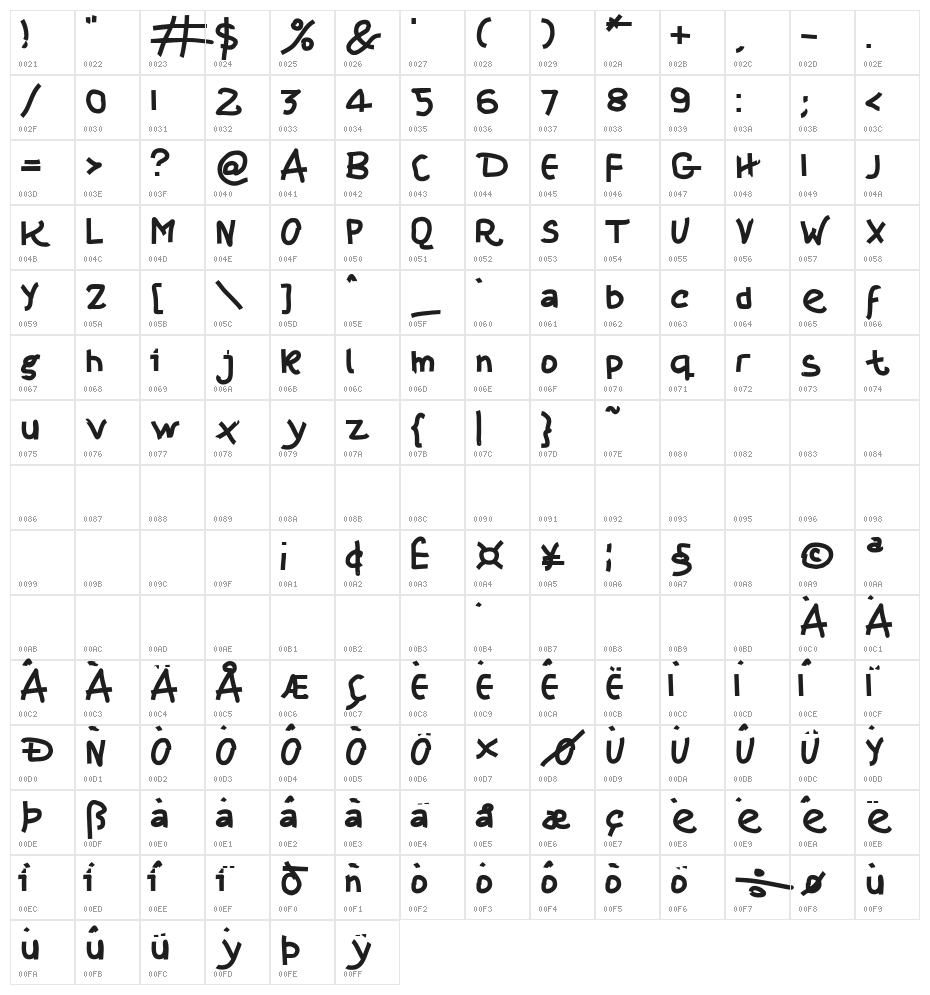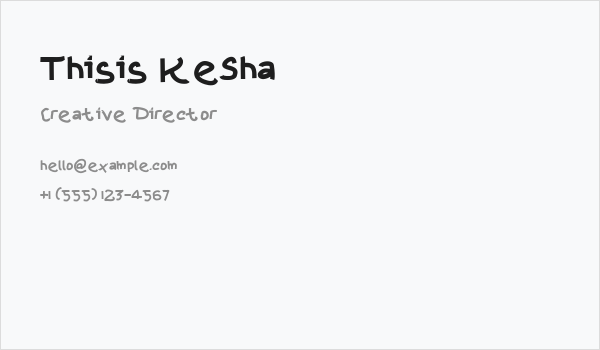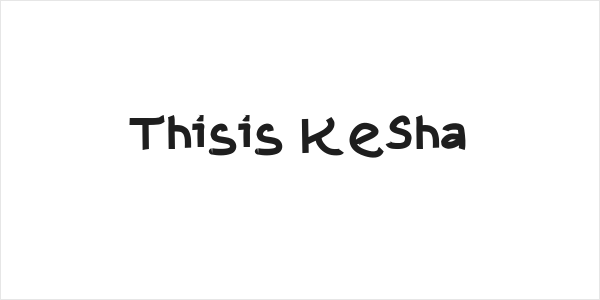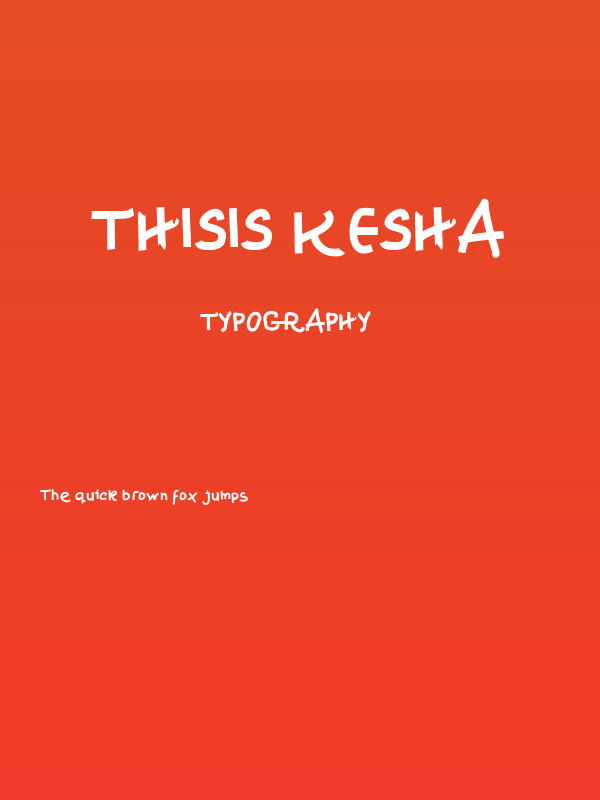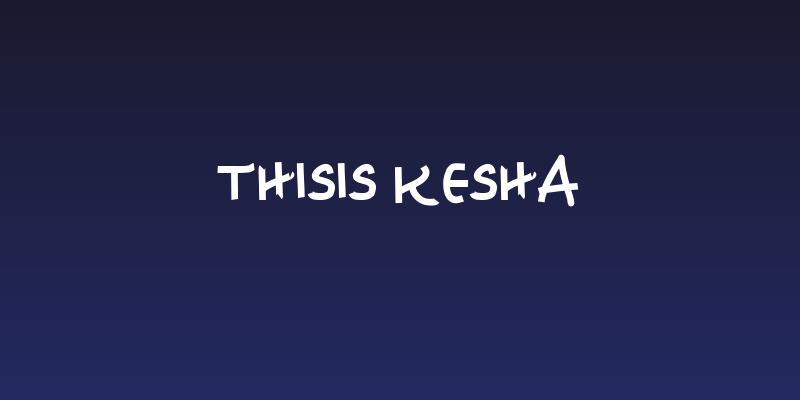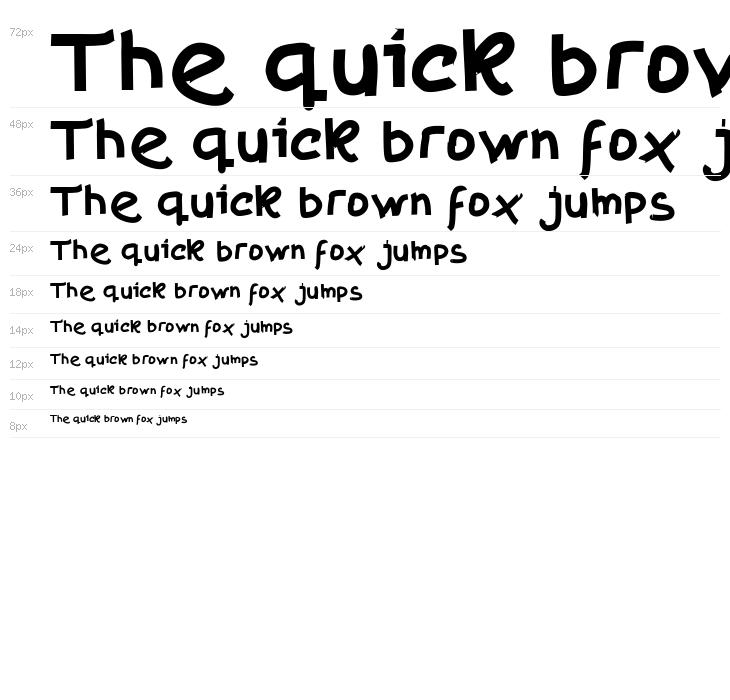
Thisis KeSha Font
Thisis KeSha Description
This playful and energetic font features bold, irregular strokes that give it a hand-drawn appearance. The characters are slightly tilted and vary in width, adding to the casual and informal feel. The uppercase letters are bold and prominent, while the lowercase letters maintain a consistent style with a quirky twist. Numbers and special characters follow the same lively design, making the font suitable for creative and fun projects. Its unique style is perfect for capturing attention and conveying a sense of spontaneity and creativity.
| Proposed Projects | Ideal for children's books, playful branding, casual invitations, and creative posters. |